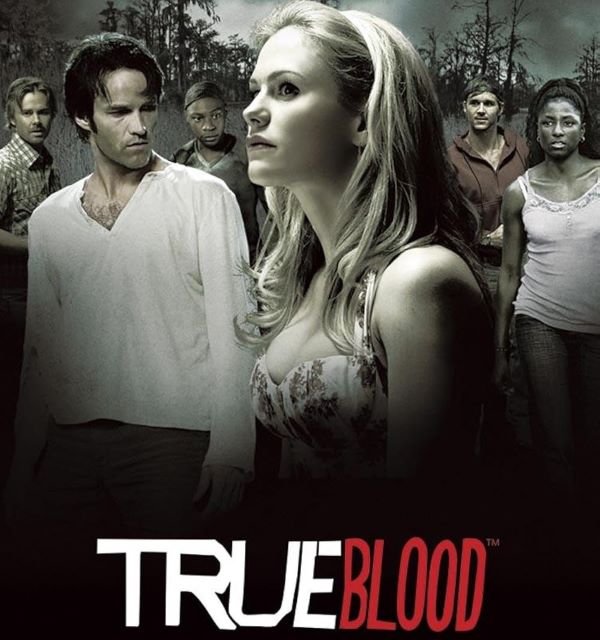
True Blood Font is a sharp gothic display font with dramatic, blood-edged lettering that embodies Alan Ball’s HBO vampire drama (2008–2014), adapted from Charlaine Harris’s Southern Vampire Mysteries novels and set in a Louisiana small town where vampires have come out of hiding following the invention of synthetic blood.
The typeface’s bold, slightly menacing character carries both the show’s deep-south gothic atmosphere and its provocative social allegory — a series that used vampires demanding rights as a none-too-subtle metaphor for real civil rights struggles, wrapped in steamy supernatural drama.